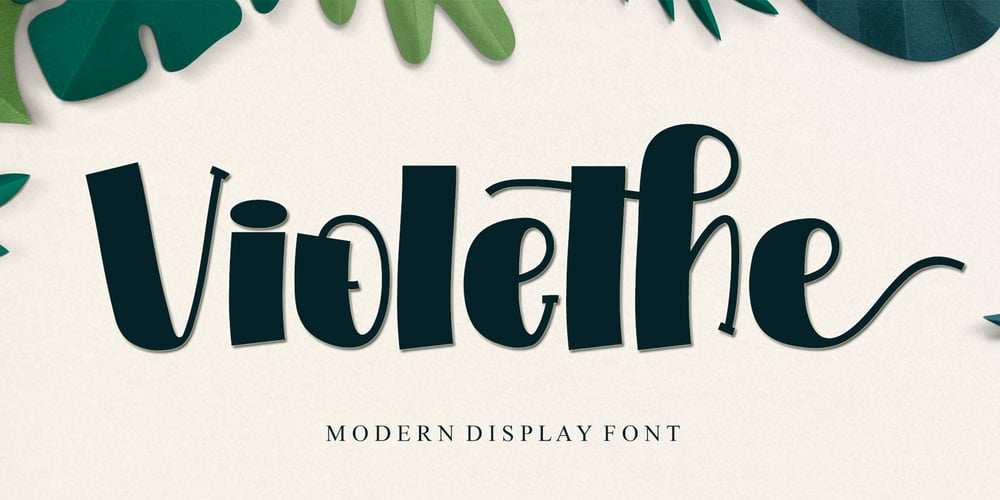
Violethe Font Family was designed by Ahmad Afandi and published by Letterafandi Studio. Violethe contains 2 styles and family package options. Violethe is a simple and unique-looking display font perfect for a wide variety of products. Use it on your Christmas decorations, Valentine’s Day cards, posters, wedding invitations, branding projects, social media posts, magazines, book covers, and whatever creative project you have in mind, and it will add a fun and friendly touch to your design!This font is PUA encoded, which means you can access all the glyphs and sweeps with ease!